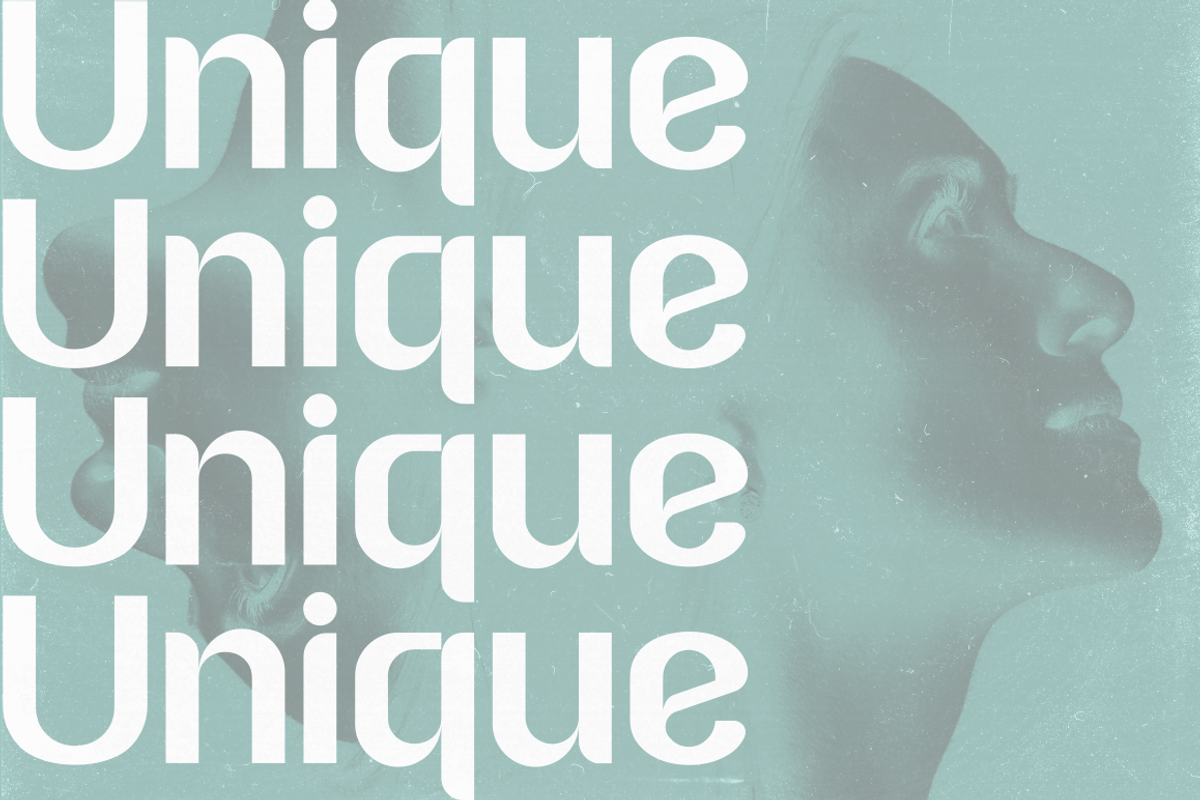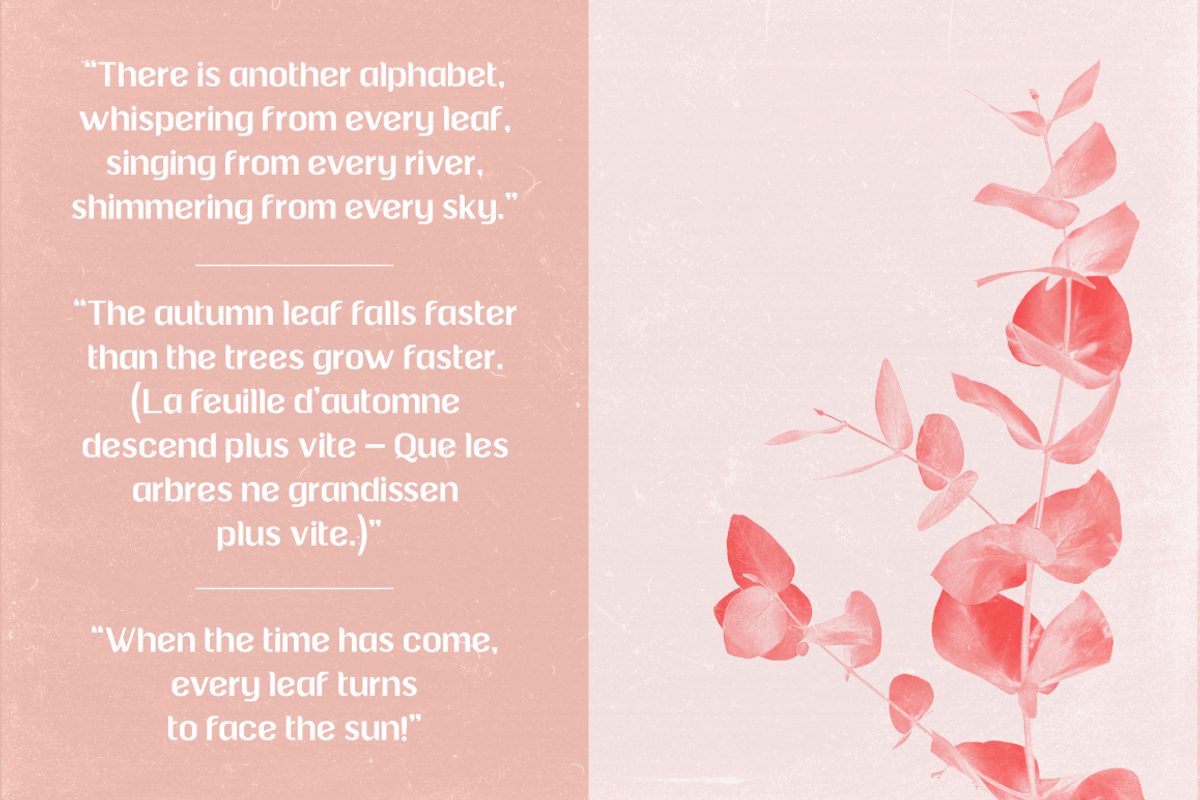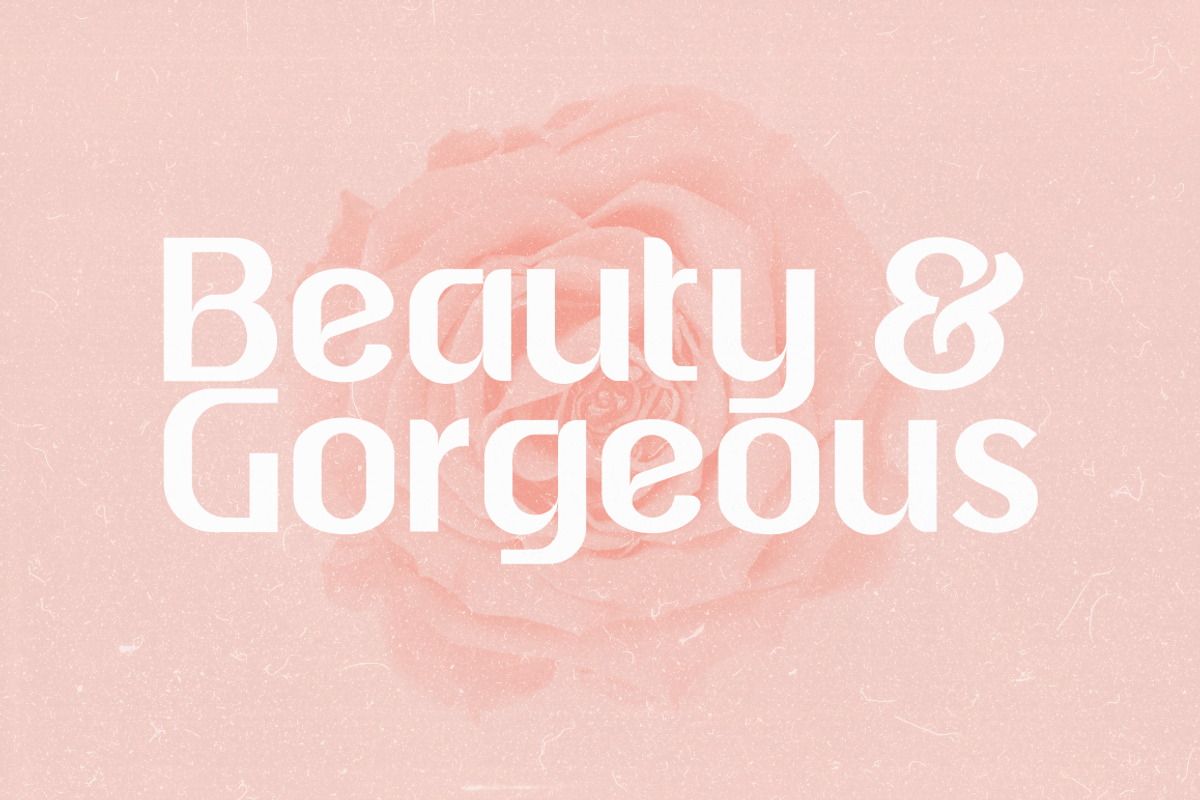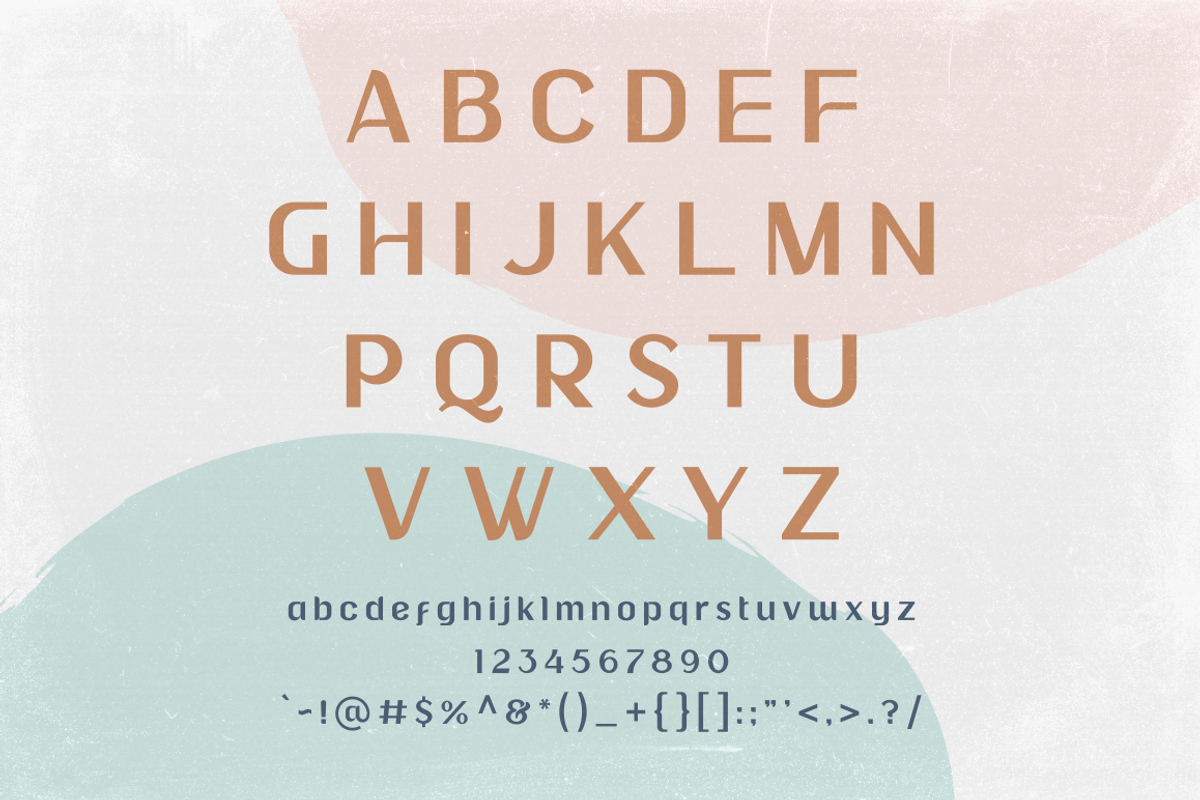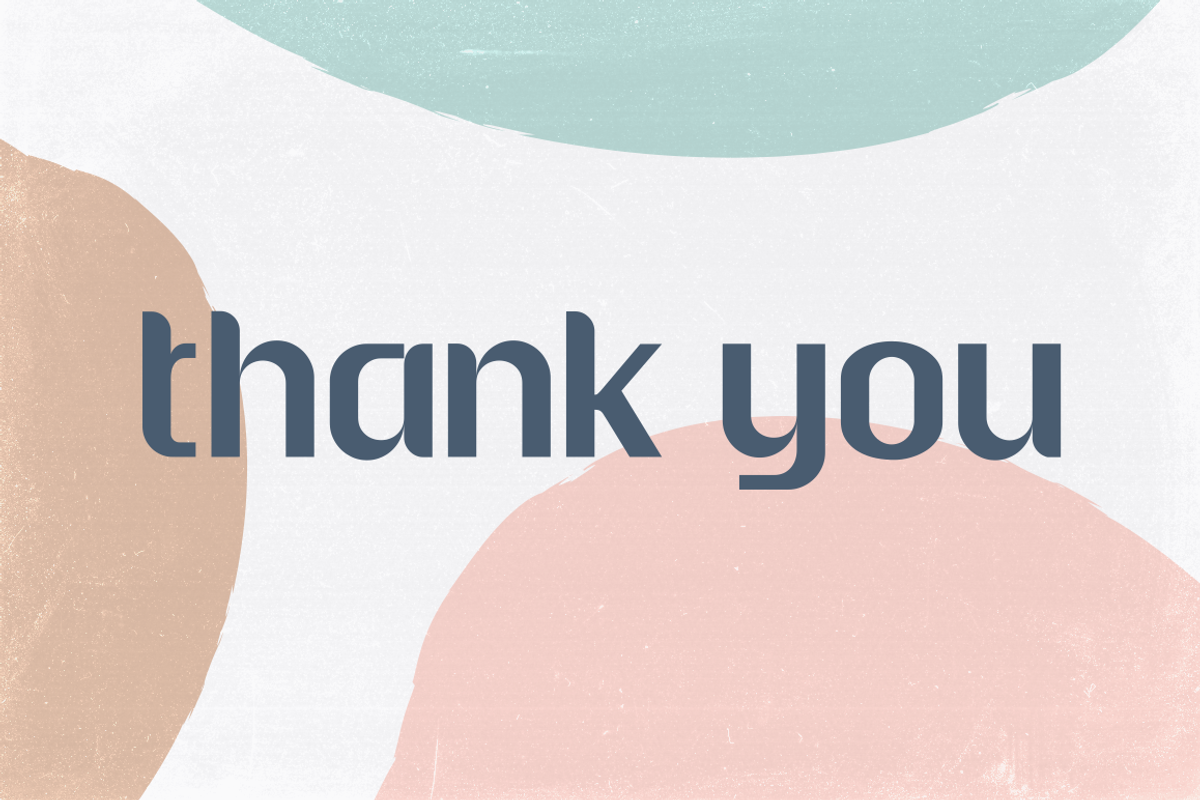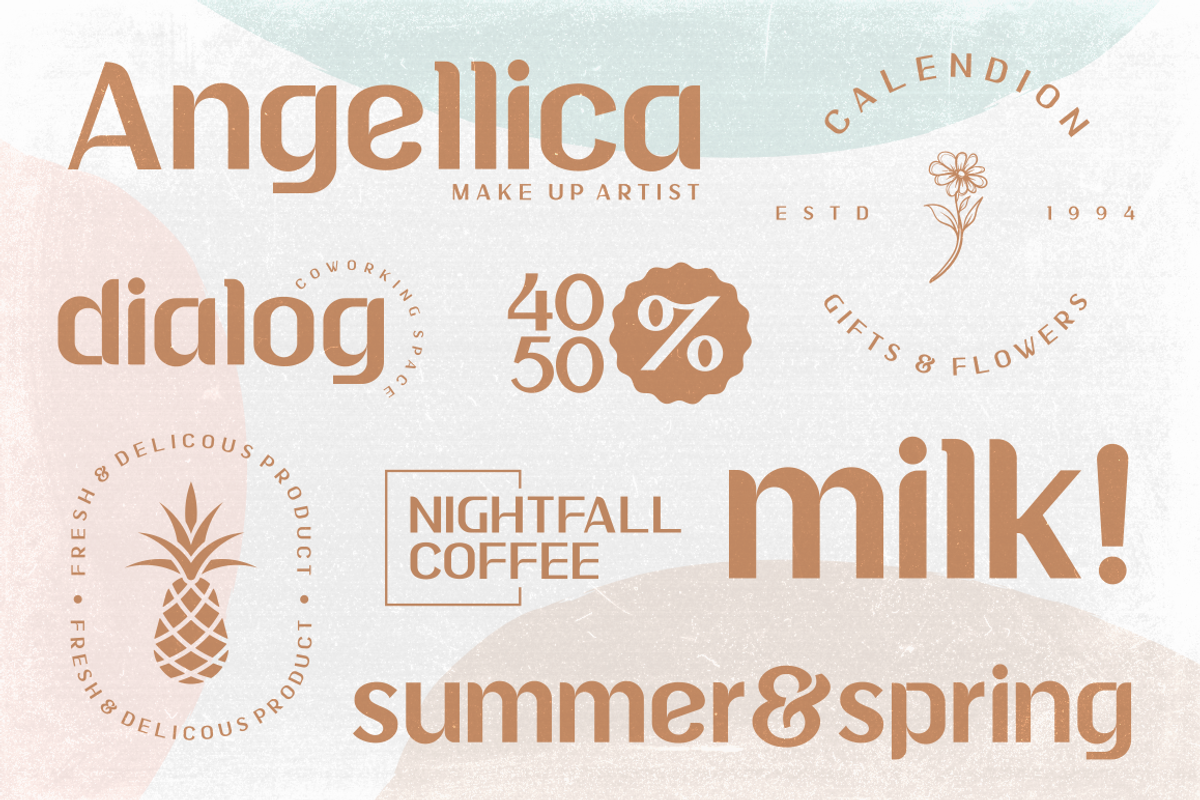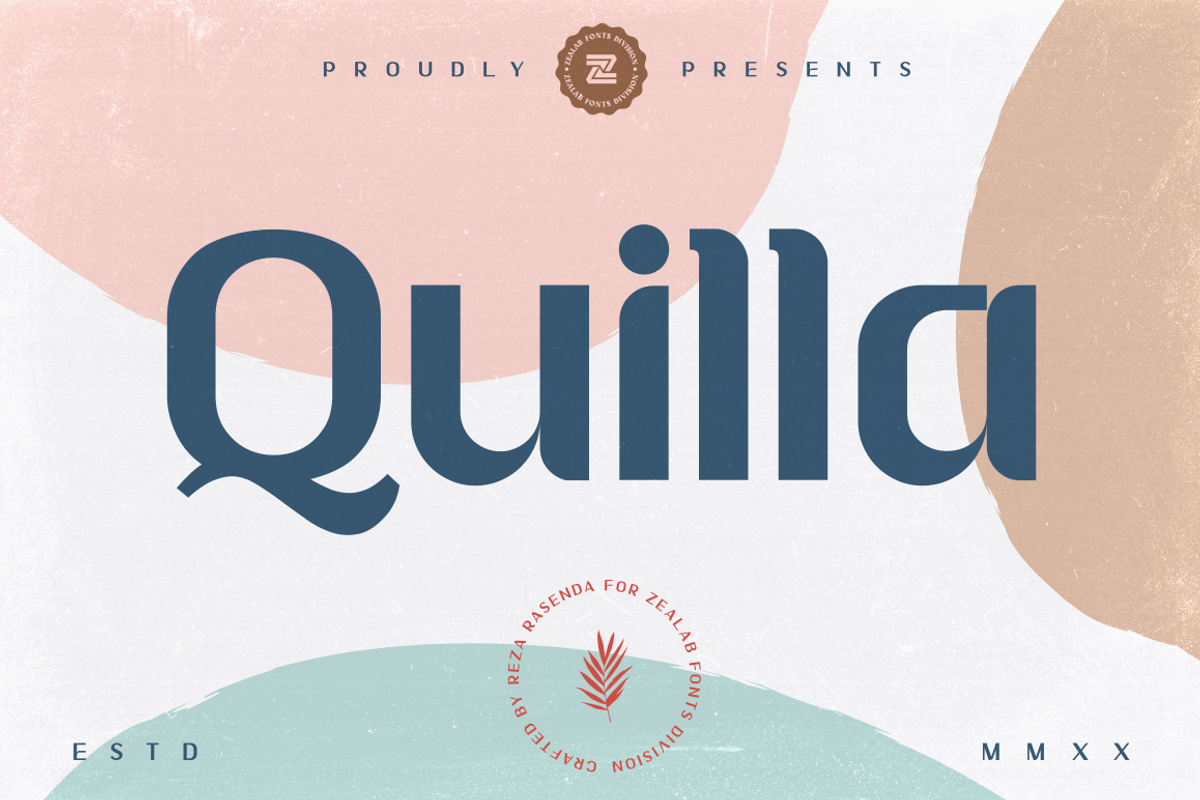
QUILLA
Quilla Font features an unique typeface stylistic set which when use to some of the Uppercase, lowercase characters and multilingual as well.
Quilla Font has been crafted from scratch with a structural logic for balance and addition Value. with combining a variety of styles Serif, Sophisticated And Luxurious, Perfect to Create unique wordmark logo, beautiful wedding invitations, use it as an elegant solution for your next magazine layout, or choose Quilla for any graphics that require a sleek look with a elegant flair.